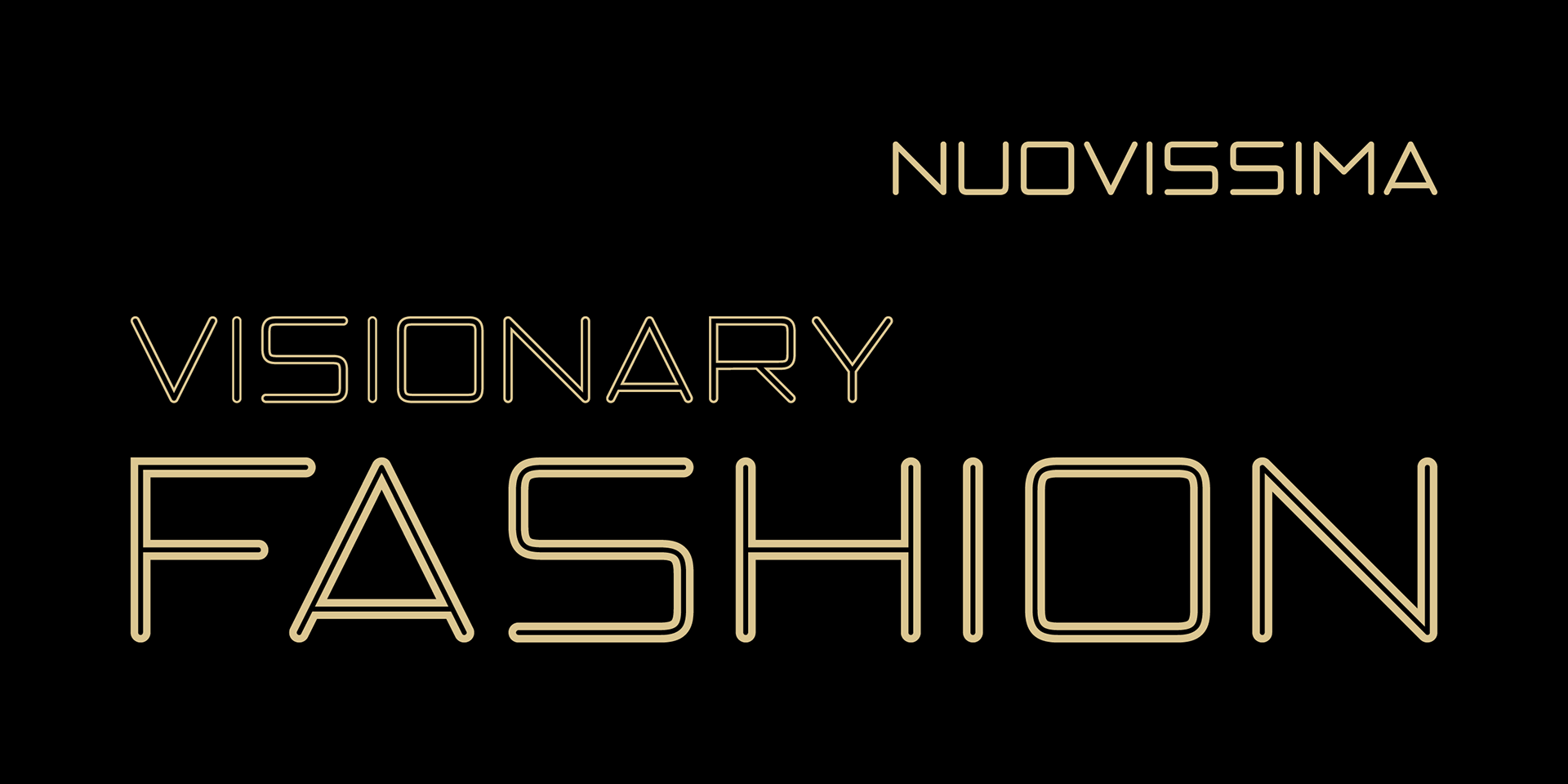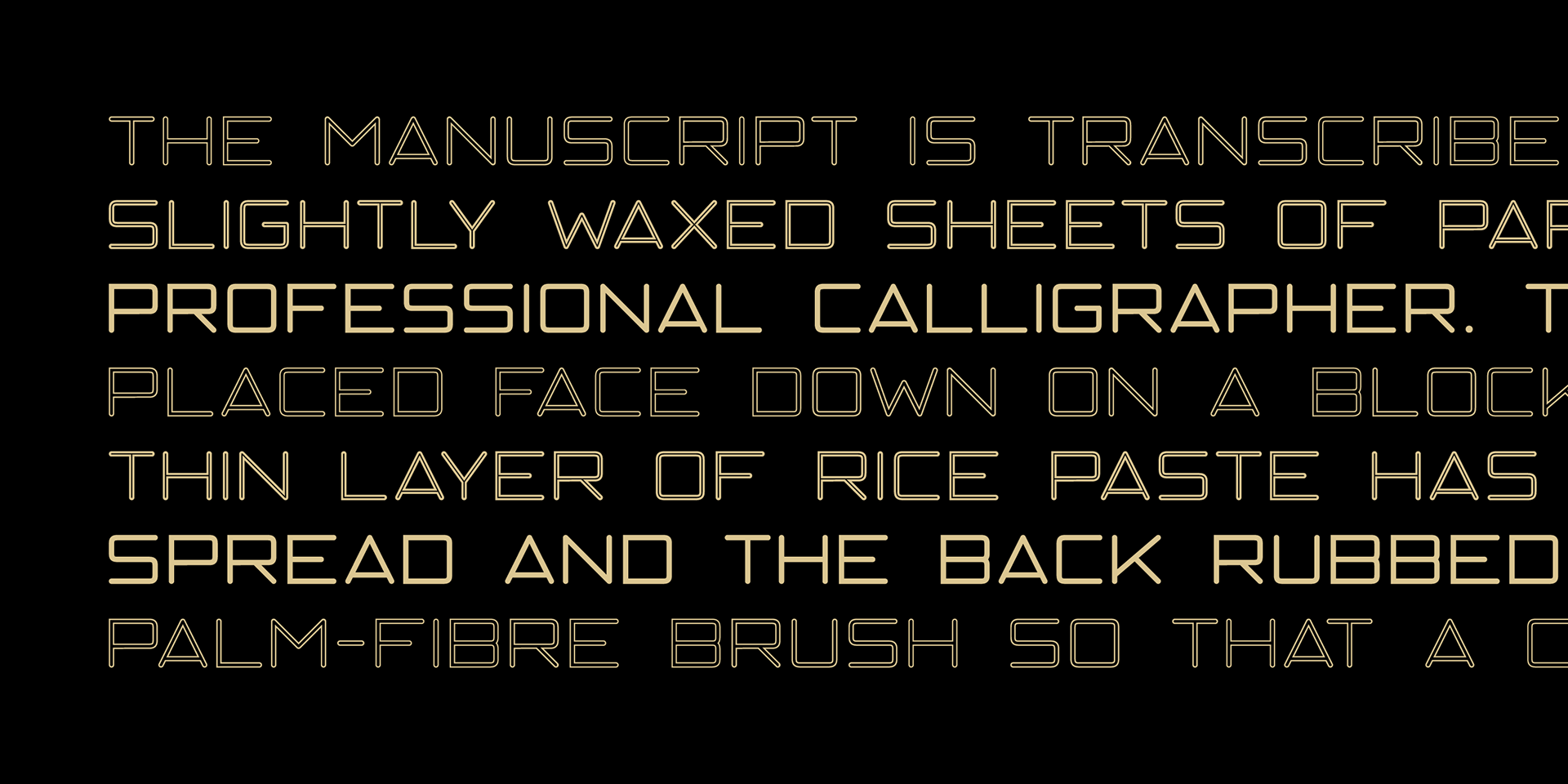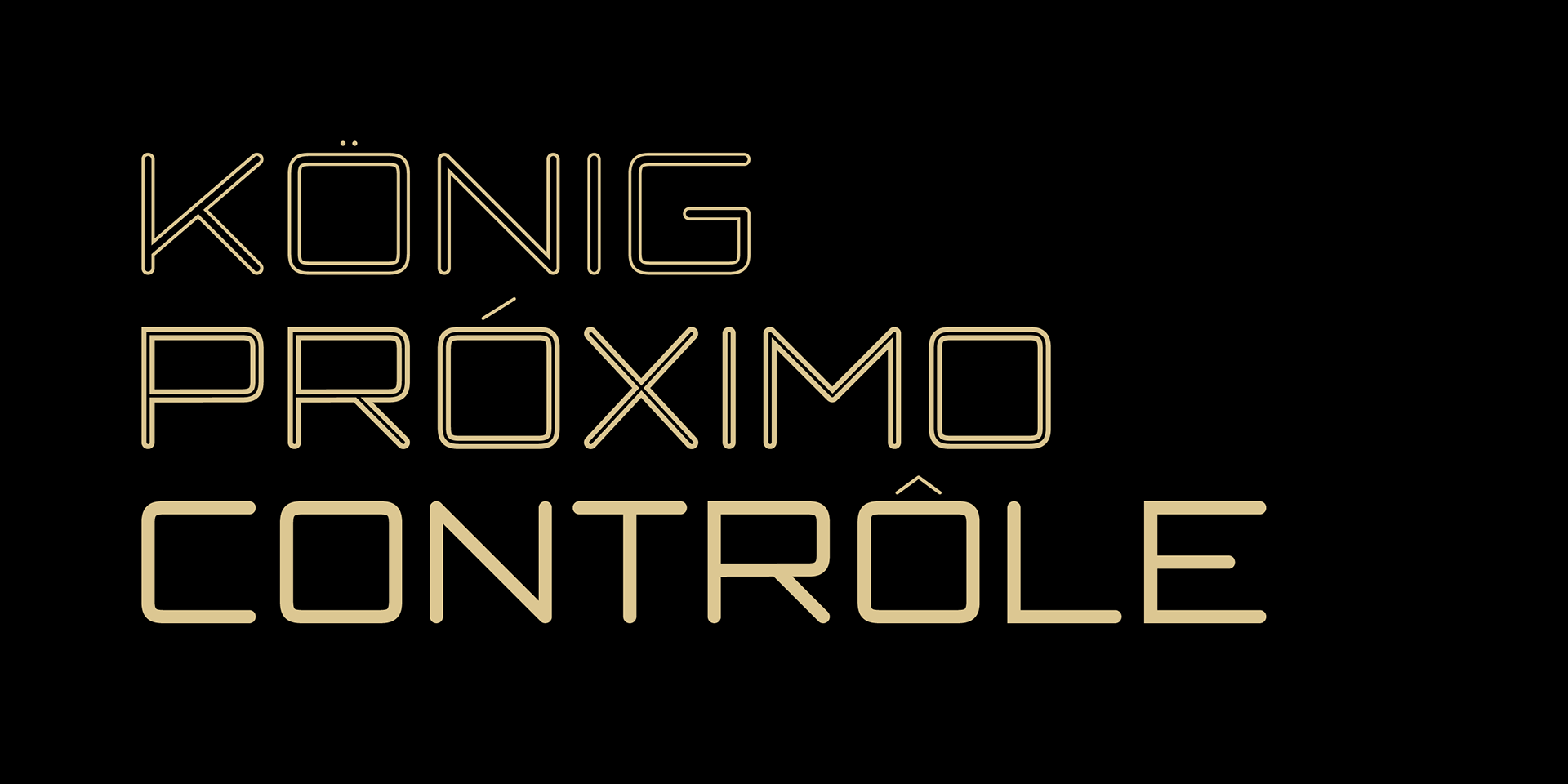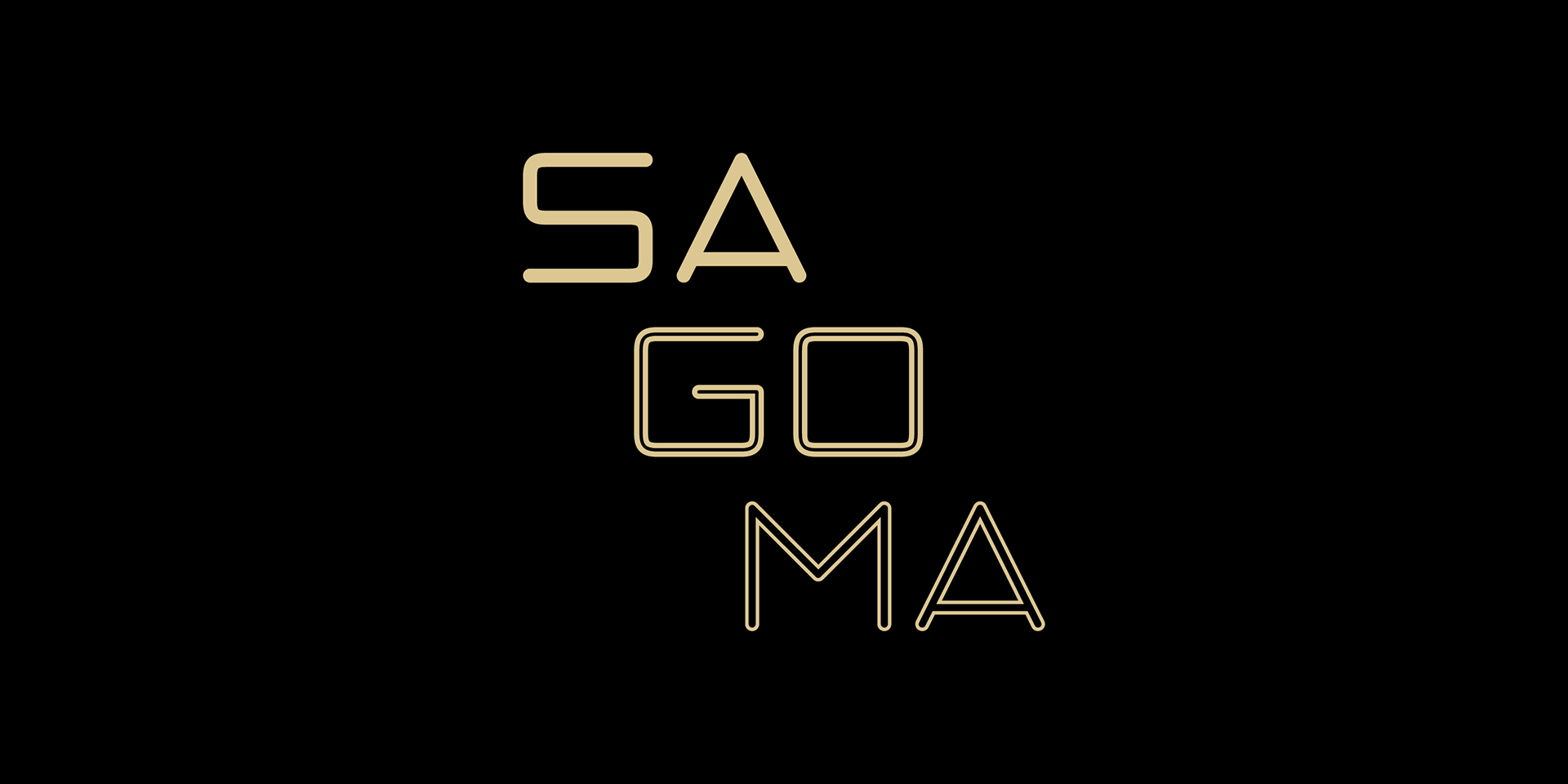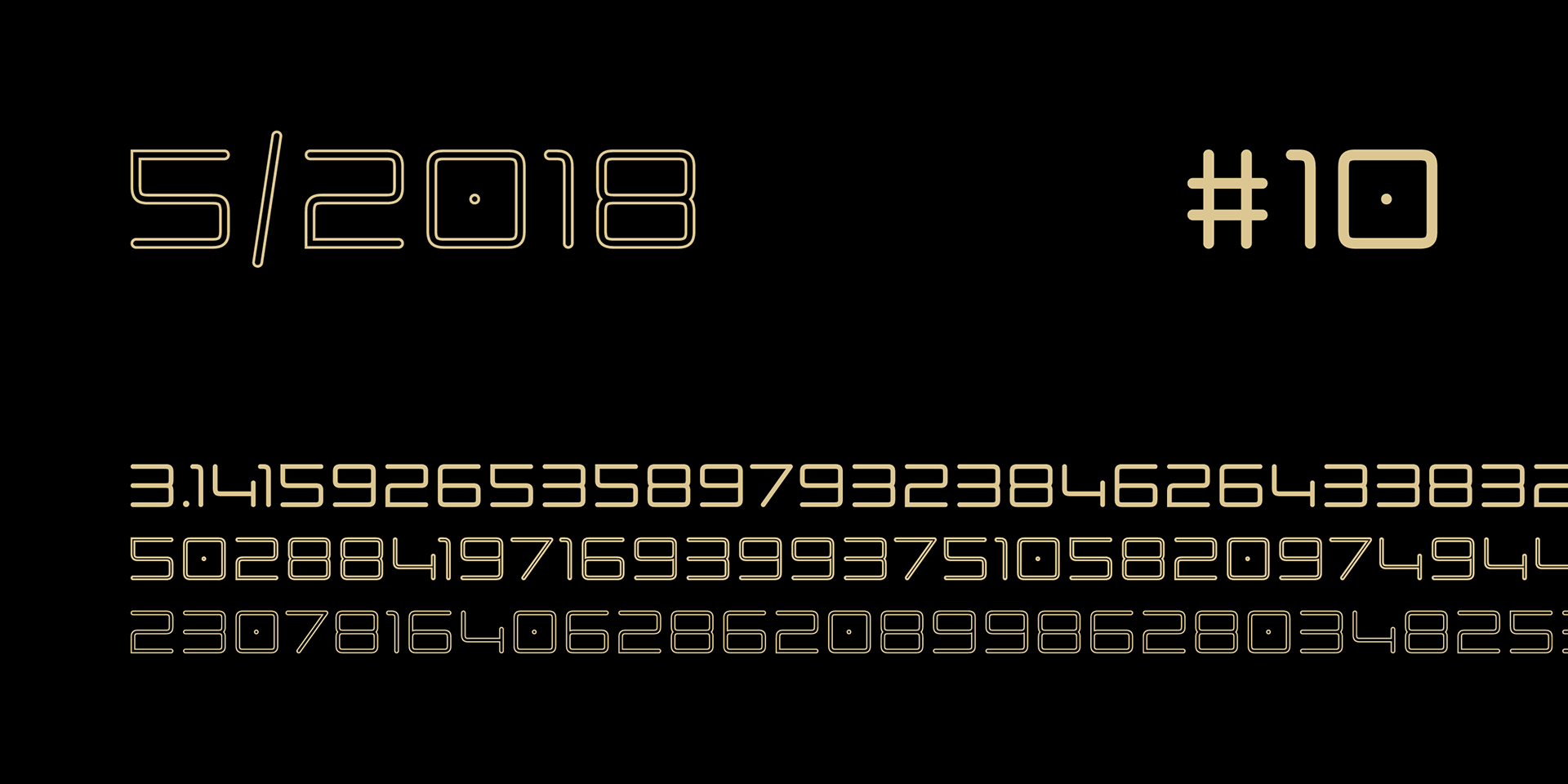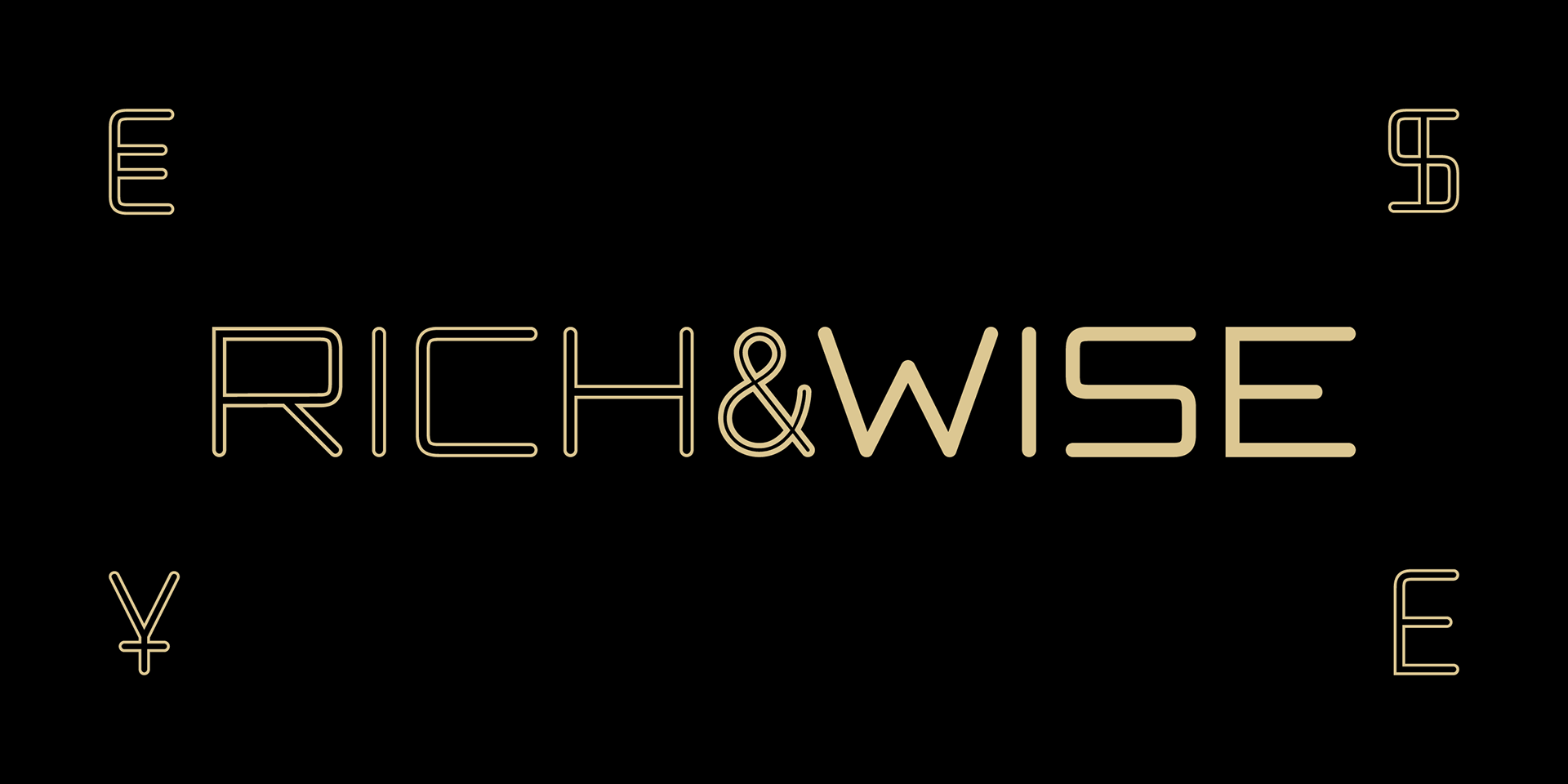
Sagoma Font Family
Sagoma is a font family expression of conscious opulence. It comes with three styles: Regular, Thick Outline, Thin Outline, contains all caps letters, numerals and symbols, supports 91 language. This font with its geometric style perfectly suites for various display purposes as logos, labels, signage, posters, covers, apparel and much more.